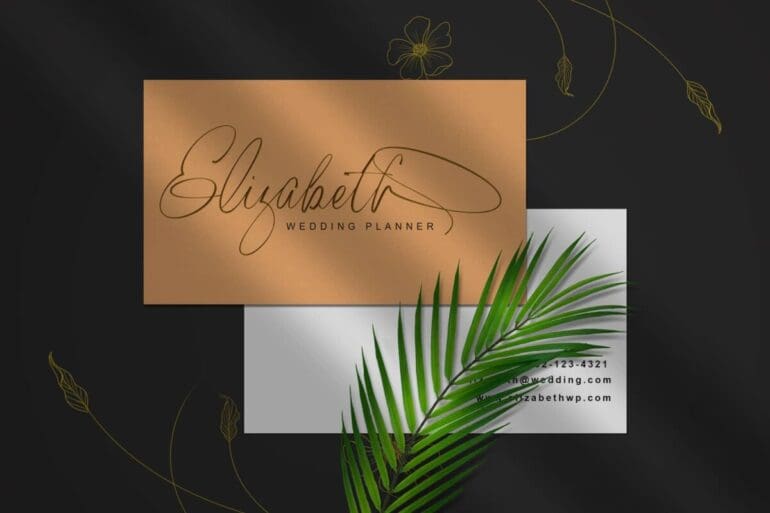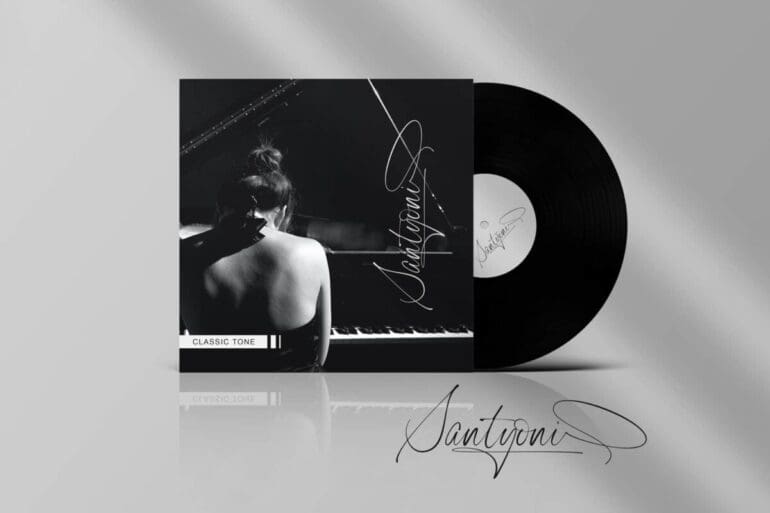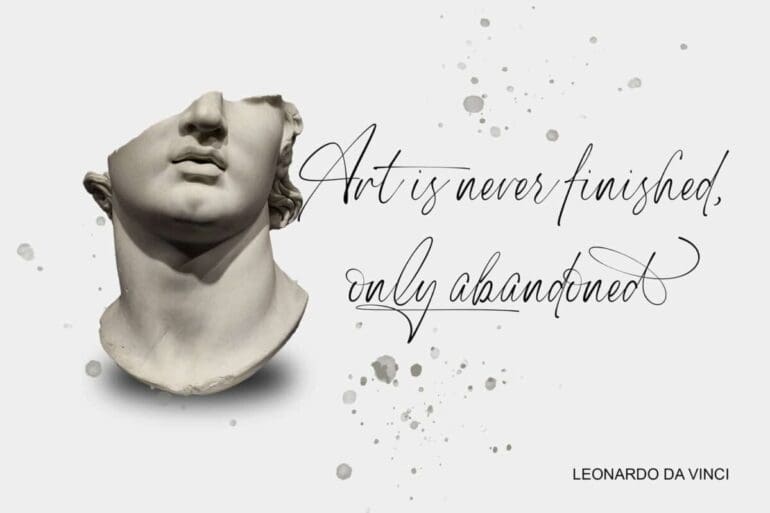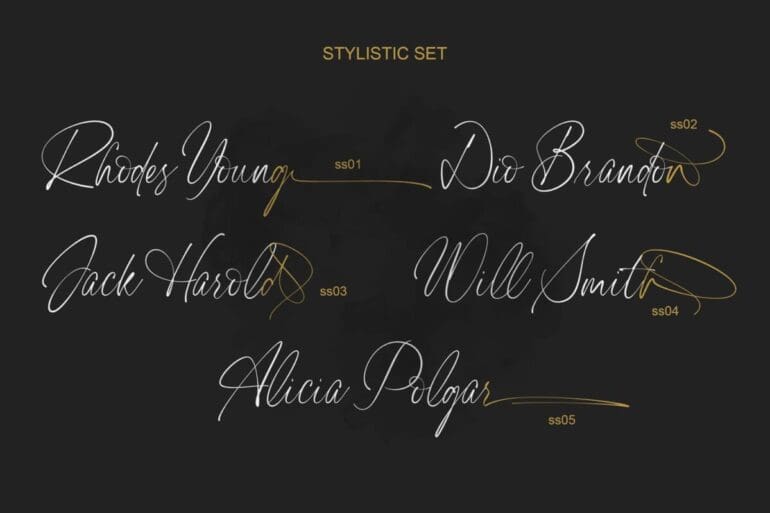
Jhodes Font
Jhodes is a perfect signature font, in classic style. Jhodes Font is perfect for many different project such as logos & branding, invitation, stationery, wedding designs, social media posts, advertisements, product packaging, product designs, label, photography, watermark, special events or anything.